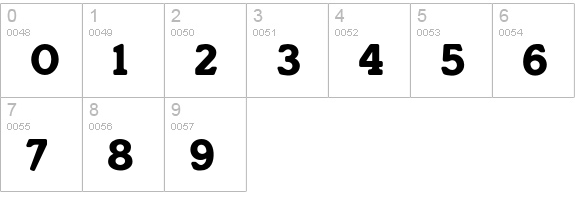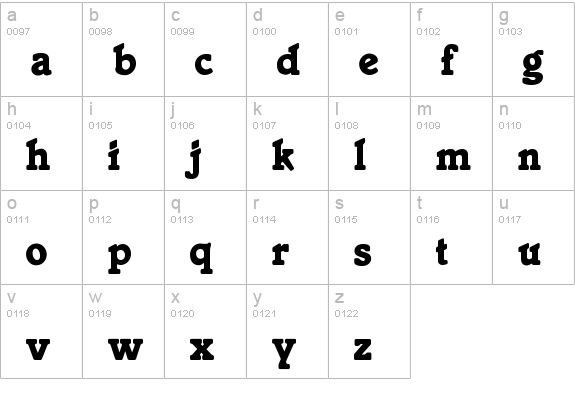
ItaliaBold Font Details
ItaliaBold is a stunning and timeless font that effortlessly combines elegance with boldness. Its sharp and clean lines make it perfect for creating eye-catching designs that demand attention. This font is meticulously crafted to bring a touch of sophistication to any project, whether it's for advertising, branding, or even personal use. With its distinct character and strong presence, ItaliaBold stands out from the crowd, making a lasting impression on anyone who encounters it. Its versatility allows it to be used in a wide range of applications, from headlines to logos, posters to packaging, and everything in between. One of the best things about ItaliaBold is that it is free! That's right, this exceptional font is freely available to download at FontsMarket.com. Now you can enhance your designs with this premium font without breaking the bank. Whether you're a professional designer or a hobbyist, ItaliaBold offers you the opportunity to elevate your work to a whole new level. Download ItaliaBold today and experience the power and beauty of this extraordinary font. Let its bold strokes and sleek curves transform your designs into masterpieces. With ItaliaBold, you'll have the freedom to create inspiring and captivating visuals that leave a lasting impression. So don't wait, indulge in the elegance of ItaliaBold and make your designs truly unforgettable.